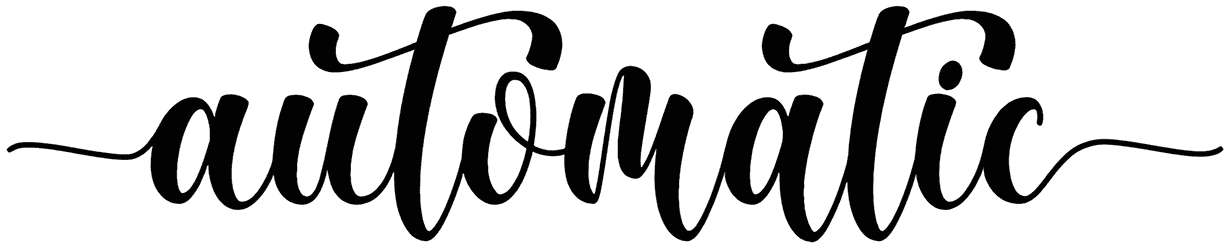
Automatic Font
Give your typography a refined look with one kind of calligraphy font that we offer you. For example, Automatic is one of those choices that takes your artwork to another level. Use it for Valentine’s flyers, romantic movies, book covers, and gift cards.